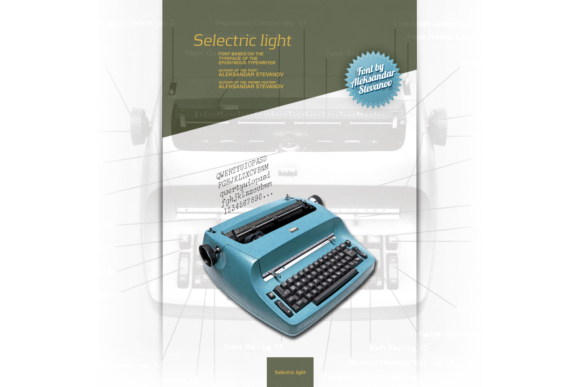
Journey back in time with Selectric Light, a captivating retro-infused typewriter font that will teleport your designs into a nostalgic era. Its distinctive, idiosyncratic charm will infuse your creations with an air of vintage elegance. Whether you're designing eye-catching posters, crafting unique branding, or adding a touch of whimsy to your social media posts, Selectric Light is your perfect companion.
This display font, meticulously crafted by the talented astevanov, is a true masterpiece. Its carefully designed characters exude a sense of authenticity, evoking the charm of yesteryears. As your fingers dance across the keyboard, Selectric Light will transport you to a world of classic typewriters and nostalgic allure.
With Selectric Light, you'll discover endless creative possibilities. Its timeless appeal makes it suitable for a wide range of design projects, from retro-themed websites to vintage-inspired logos. Unleash your imagination and let Selectric Light guide you on a creative journey through time. Embrace the allure of the past while creating designs that resonate with the present.